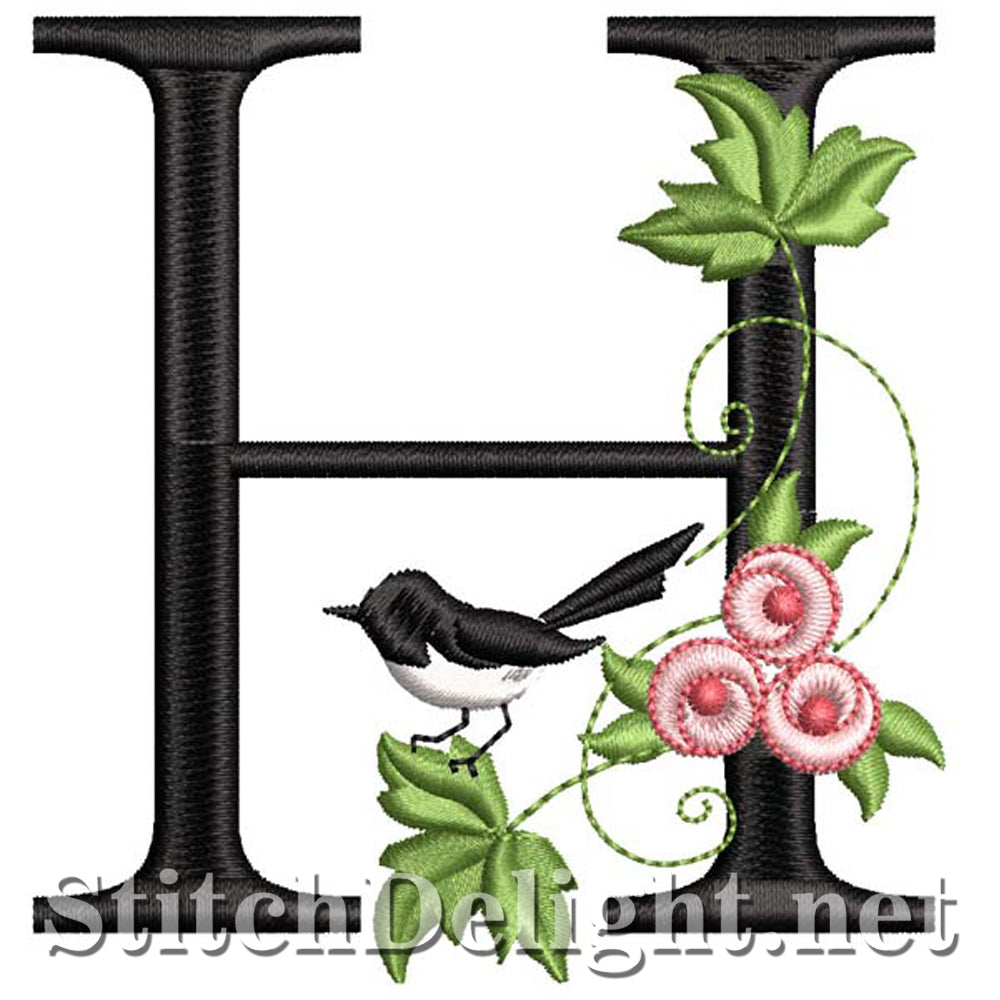
SDS1261 Little Tweets Font H
Pretty letters decorated with bullion little roses and tiny song birds - Letter height is 3.30" and approximate stitch count is 6200 stitches - CLICK on the image to view all letters in the set